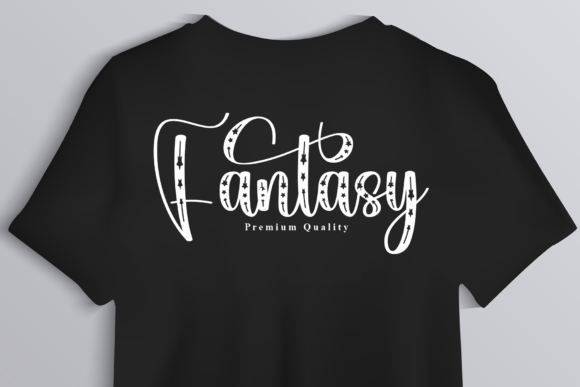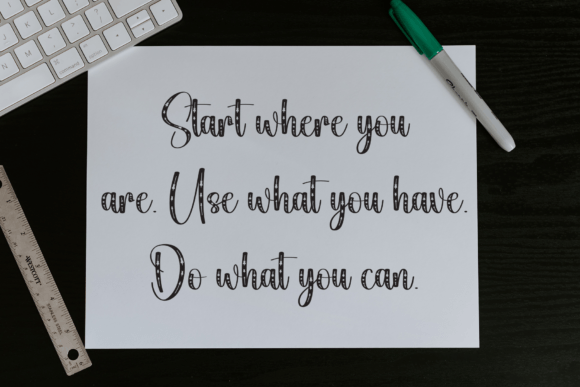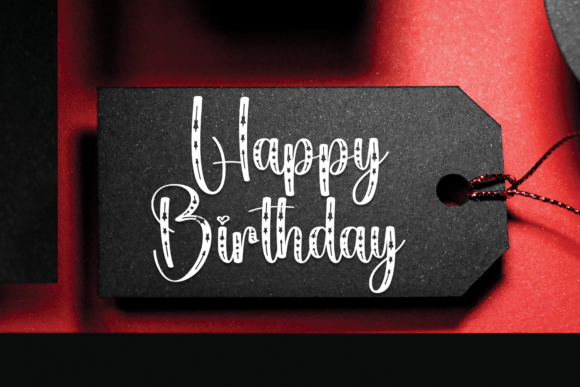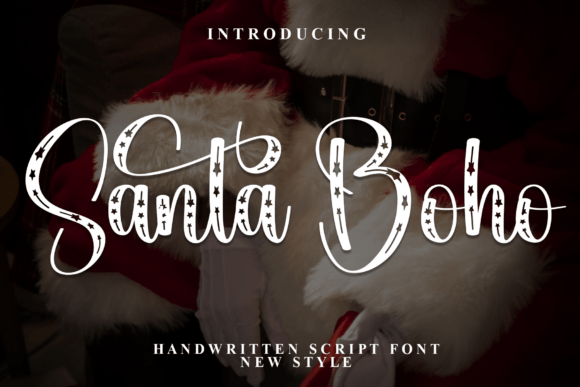
Introduction to Santa Boho Font
Santa Boho is a sweet and friendly handwritten font.
Why Choose Santa Boho Font?
Santa Boho Font offers exceptional quality and versatility, making it a valuable addition to your design toolkit. Whether you’re creating for personal projects or commercial use, Santa Boho Font delivers professional results.